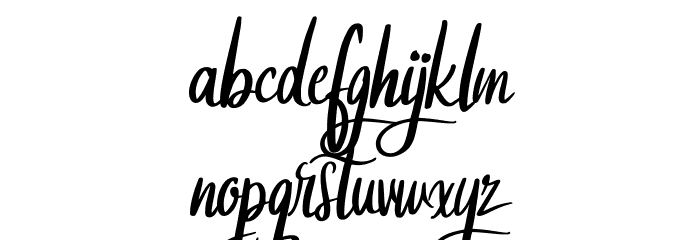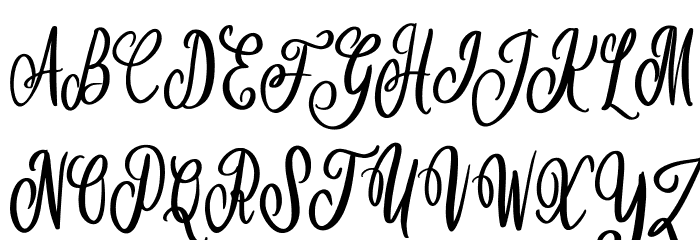
Hailbet FREE Font
This font features an elegant and flowing script style, characterized by its ornate and decorative letterforms. The uppercase letters are particularly elaborate, with sweeping curves and flourishes that give a sense of movement and grace. The lowercase letters maintain a consistent style, offering a harmonious blend with the uppercase. The font's overall appearance is sophisticated and artistic, making it suitable for projects that require a touch of elegance. The characters are well-spaced, ensuring readability while maintaining the decorative nature of the script.
An elegant and flowing script font with ornate letterforms.
- Font: Hailbet FREE
- Proposed Projects: Ideal for wedding invitations, elegant branding, greeting cards, and decorative posters.
- Category: Script
- Use Case: Logos, Invitations, Decorative text